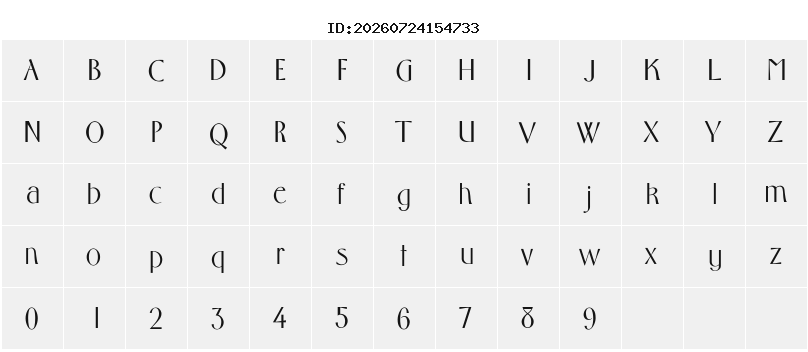
Middleton-Italic Preview
About Middleton-Italic.ttf
Middleton-Italic.ttf is a modern, elegant sans-serif font designed for ultimate readability and visual harmony. Perfect for branding, headlines, web design, and print materials.